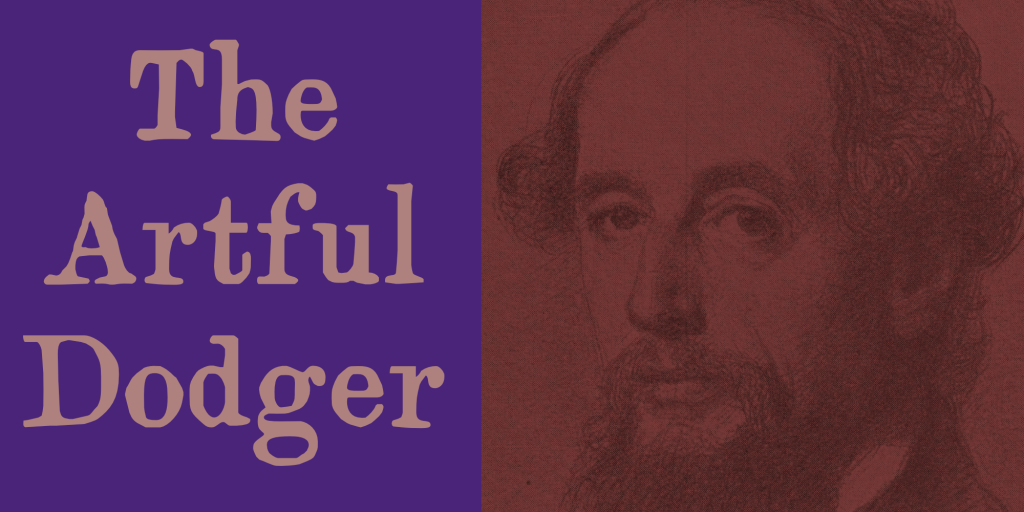
Artful Dodger
The Artful Dodger is a character in Charles Dickens’ Oliver Twist. Dickens wrote his books in the Victorian Era, which also gave birth to a beautiful and extensively used typeface called Clarendon. The typeface was developed by Robert Besley and first published in 1845. Artful Dodger was modeled on the glyphs found in a 1865 book, which was typeset in Clarendon. Artful…